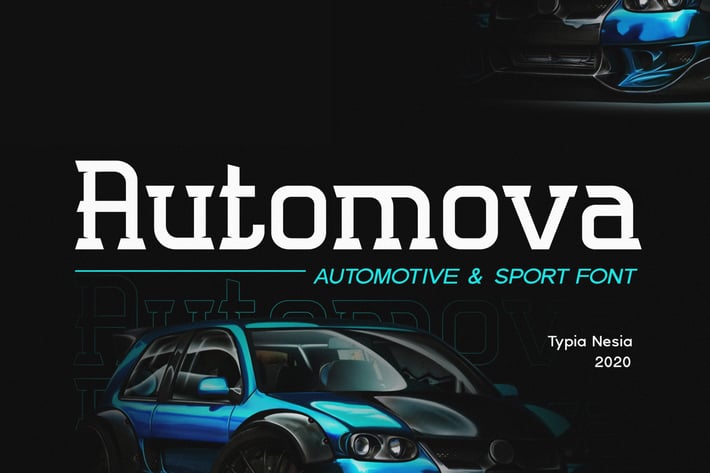
Automova - Sport Font
Automova - Automotive and Sport Slab Serif Display Font
Automova Display Font is perfect for your up coming projects. Such as logo branding, sport, automotive, editorial design, stationery design, sport design, blog design, modern advertising design, card, quote, home decor, book/cover title, special events and any more.